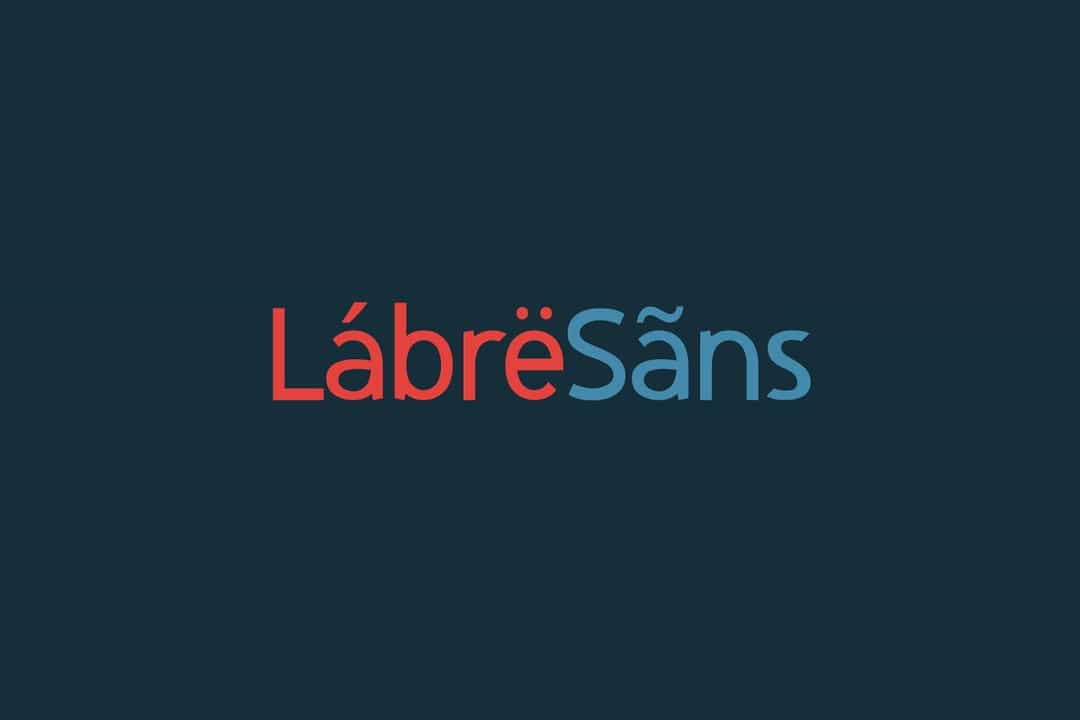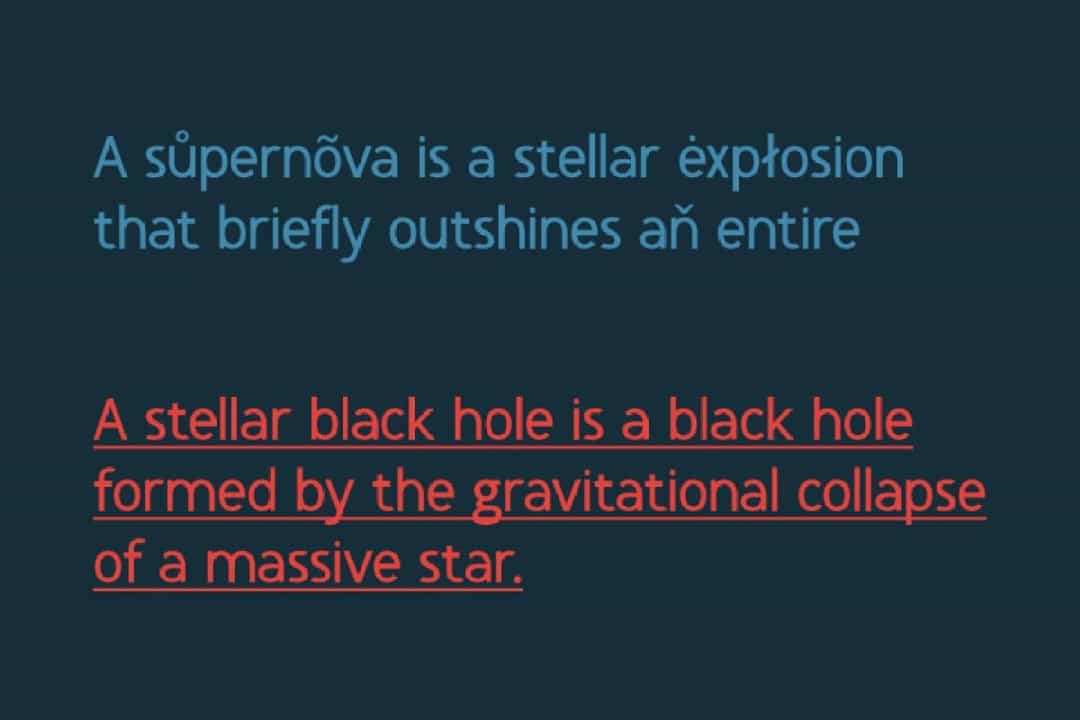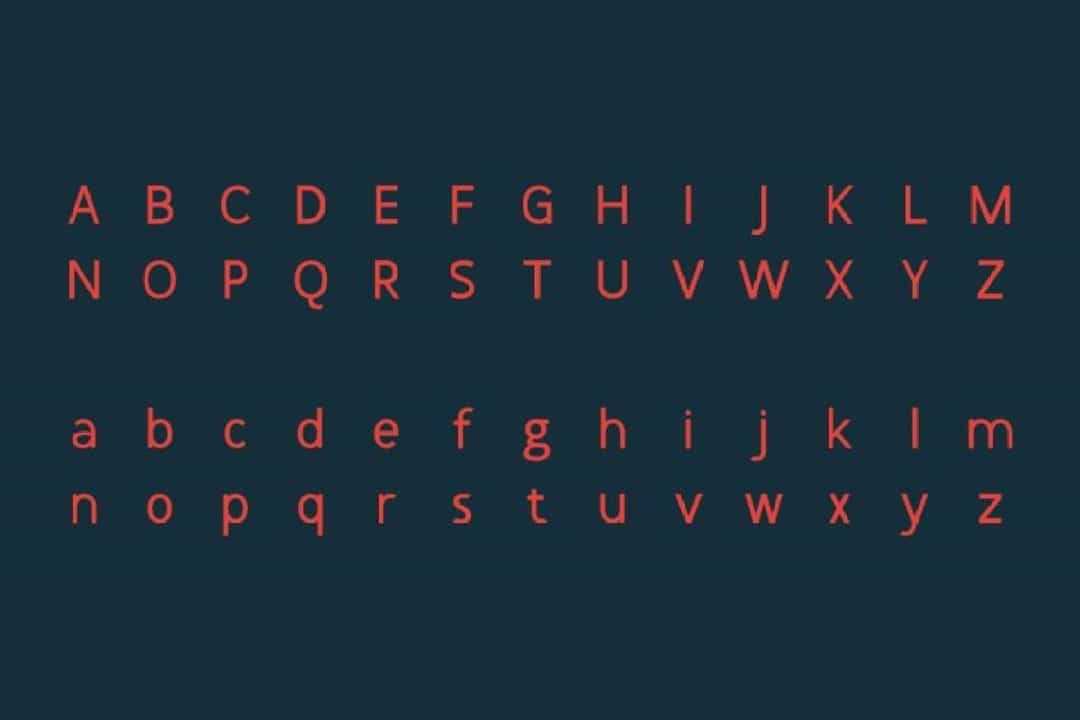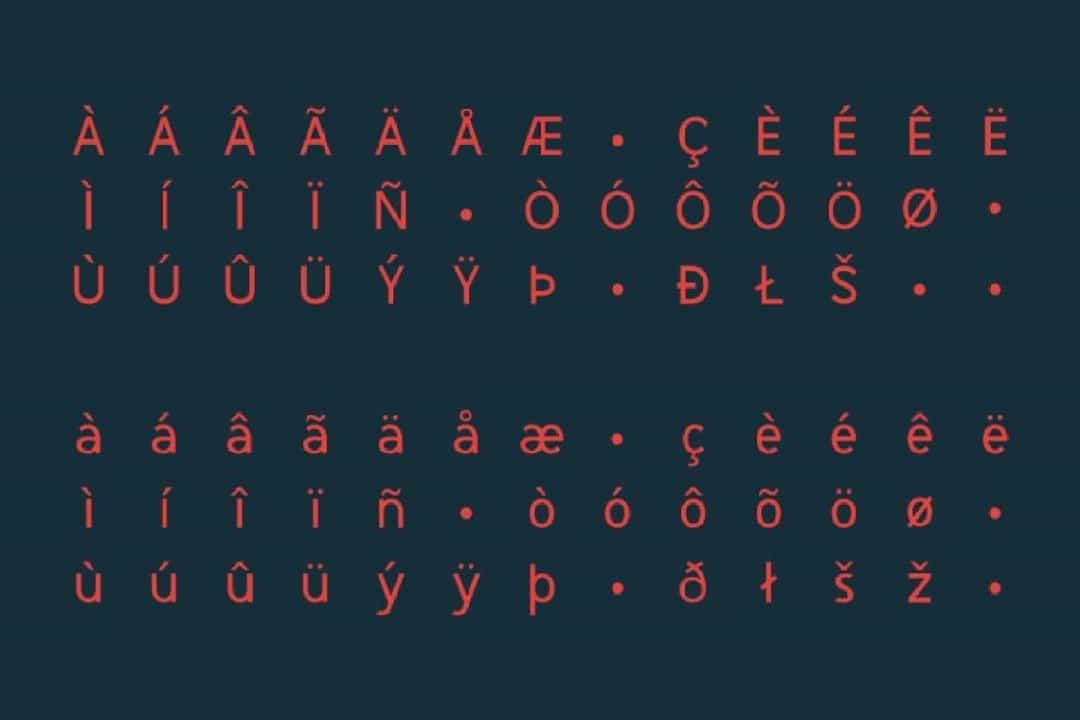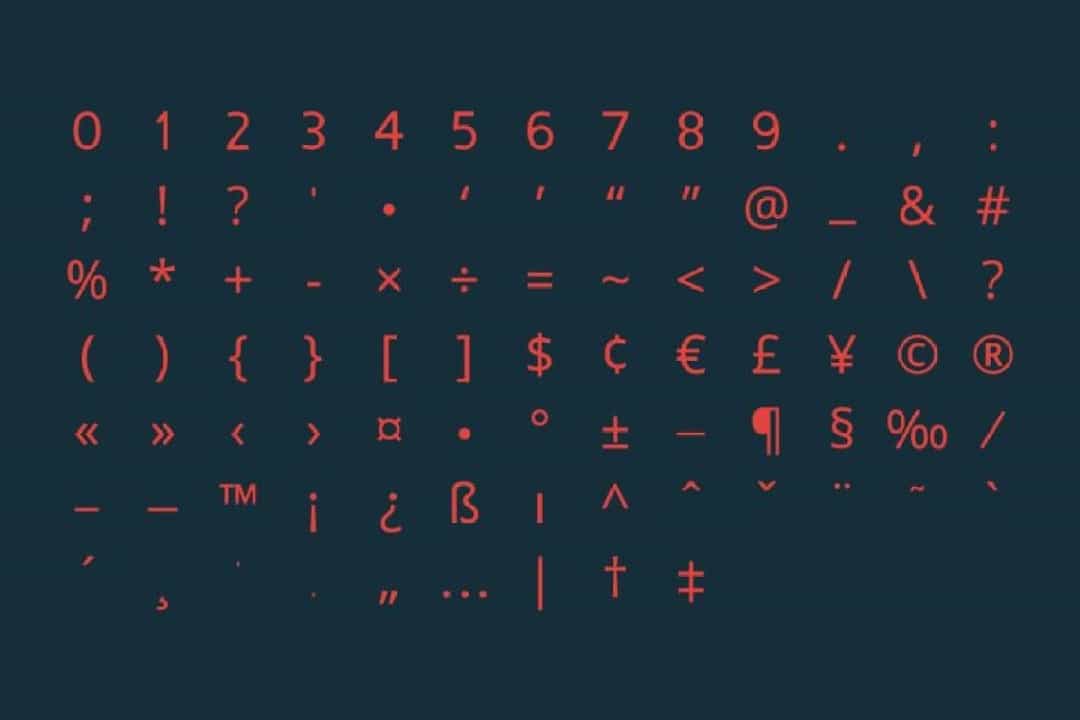
Labre Sans Font has a smooth, clean modern look. It is a good choice in any situations that require softer edges and unique alternate glyphs, Ornaments as well as multilingual support which is especially important for its many uses around the world including on larger sizes or small pieces of text. It is a versatile font which also excels at small and large sizes alike.